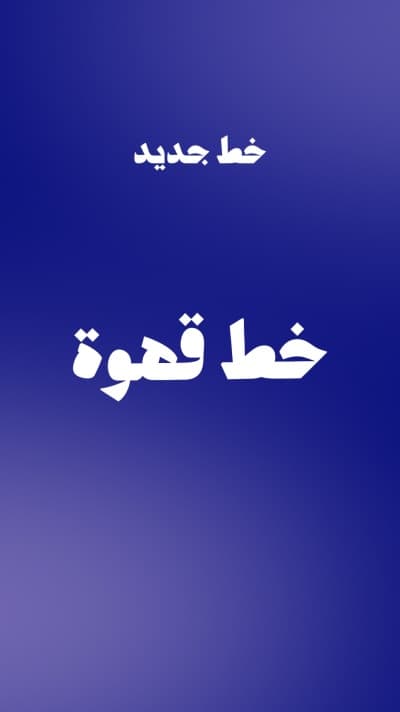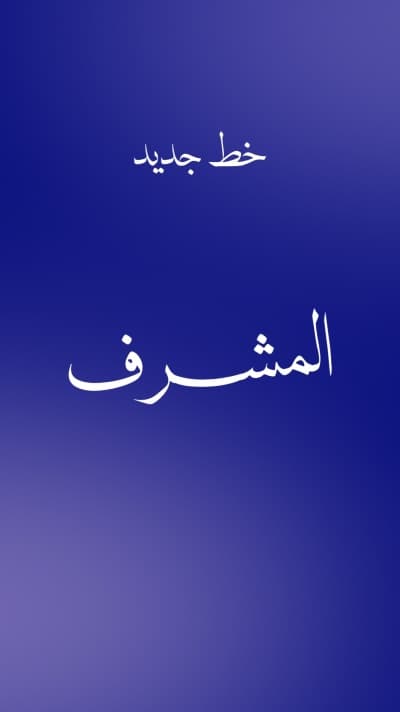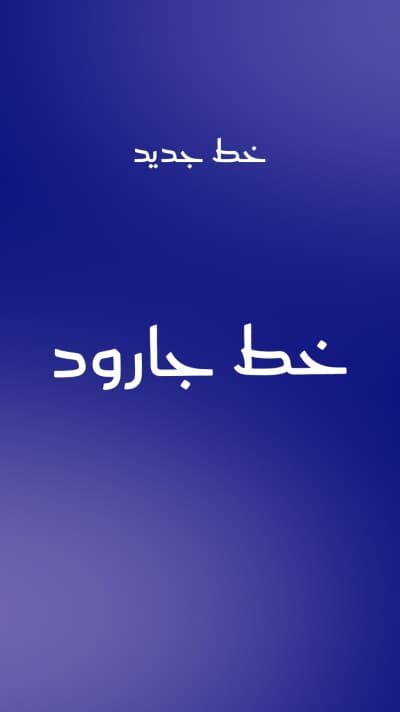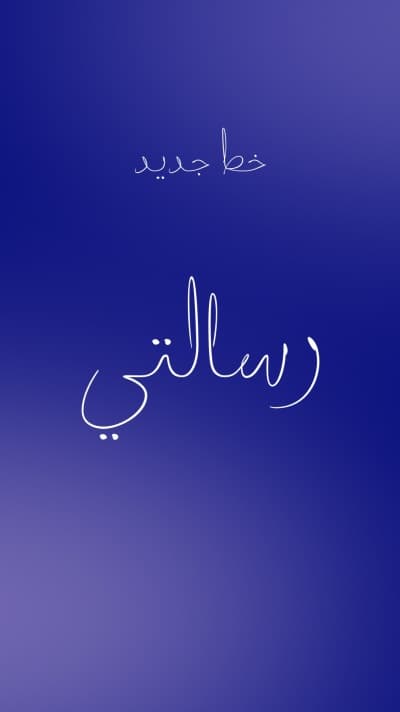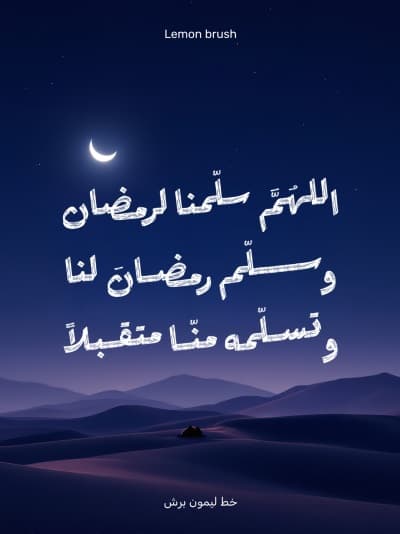
Every Arabic script in one place. Naskh, Thuluth, Ruqah, Diwani and Farsi plus modern faces, all with full tashkeel and nothing to download.
Which scripts are included?
Naskh, for long text and legibility
Thuluth, for ornamental headlines and wall pieces
Ruqah, the everyday hand, good for headings
Diwani, for invitations and occasions
Farsi, for poetry and literary text
Modern Arabic faces for contemporary work
Do they support tashkeel?
Yes, in full, which is what Quranic text, hadith and poetry need. Use one script for the headline and another for the body to get clear contrast, then export at a quality that keeps the letterforms sharp.